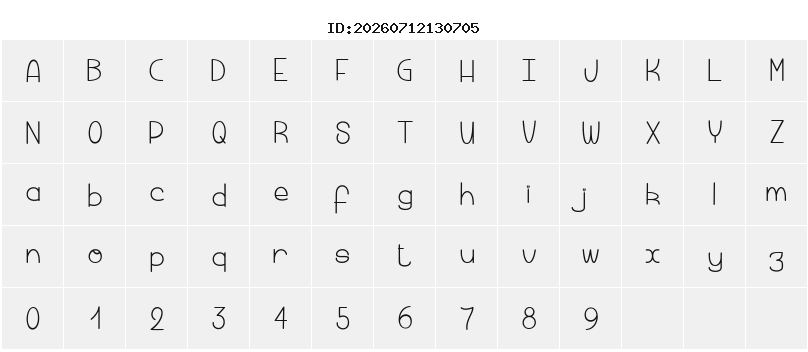
• Font Name: Macaroni & Cheese
• Full Font Name: Macaroni & Cheese
• Designer: dcoxy Medina Gregory
About Macaroni & Cheese .ttf
Macaroni & Cheese .ttf is a modern, elegant sans-serif font designed for ultimate readability and visual harmony. Perfect for branding, headlines, web design, and print materials.